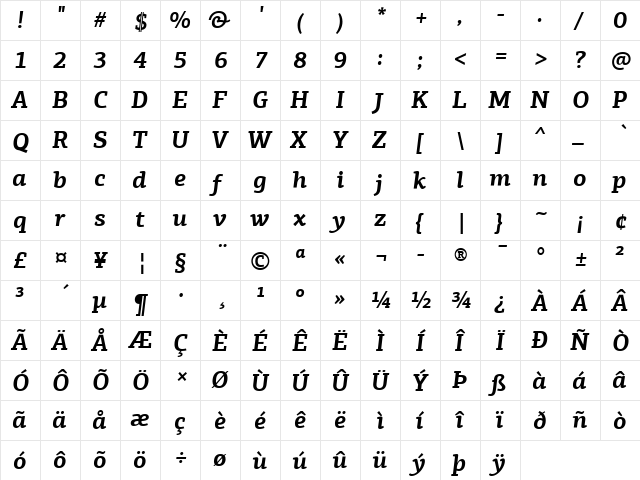
PF Agora Slab Pro Bold Italic Font Preview
Design Context for PF Agora Slab Pro Typeface
PF Agora Slab Pro features prominent, blocky serifs that give it a confident, grounded presence — equally at home in editorial settings and bold branding work. The dynamic lean of this cut emphasises speed and emphasis in any layout. The heavy weight commands attention and anchors typographic hierarchies.
Works well in editorial design, news publishing, impactful branding, and poster typography.
Pro Tip: Try PF Agora Slab Pro set tight in headlines for a classic editorial feel. Its slab serifs create strong horizontal rhythm that anchors a page layout.